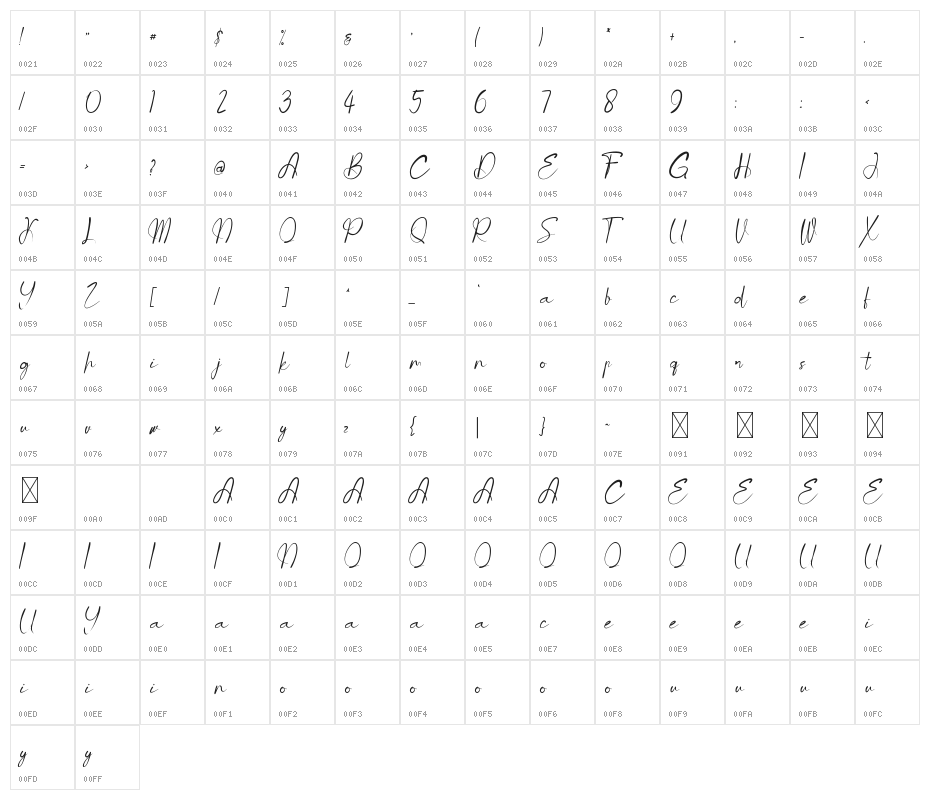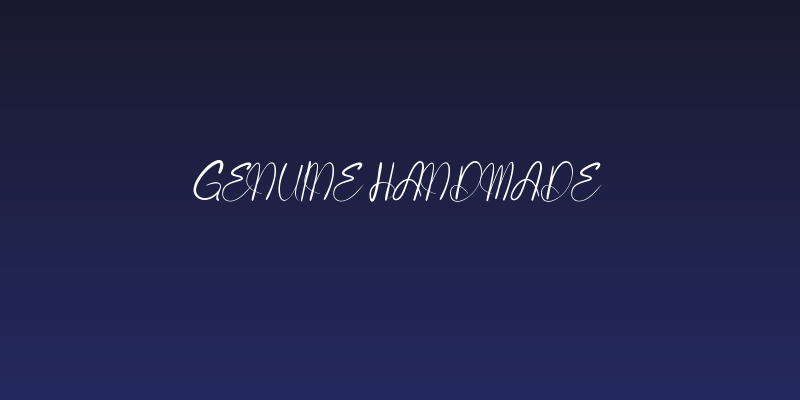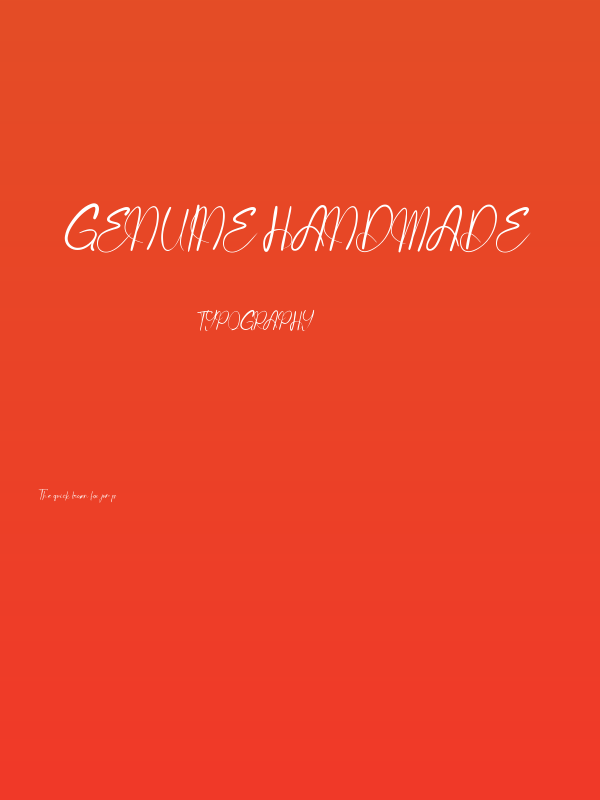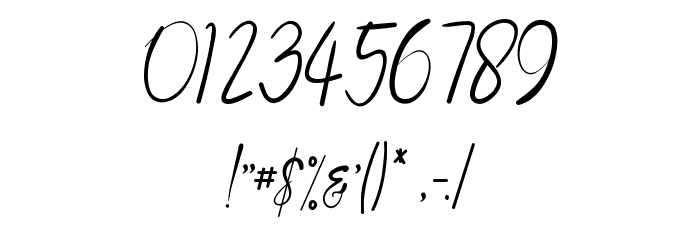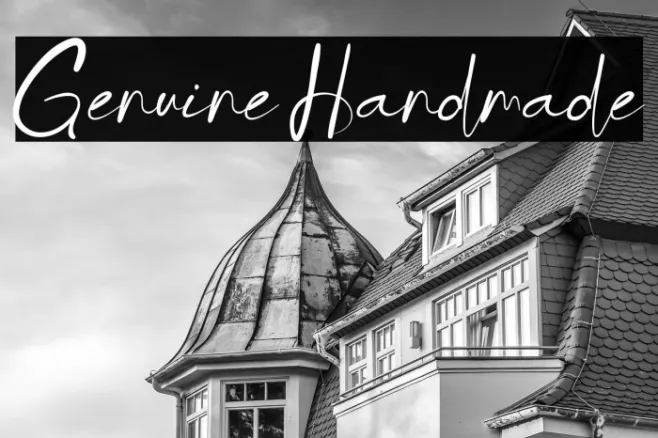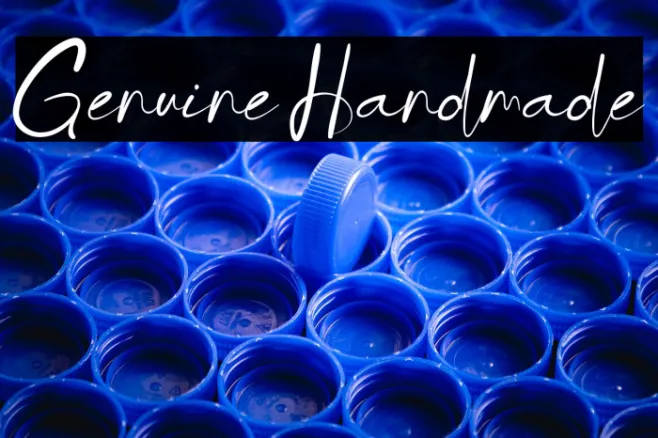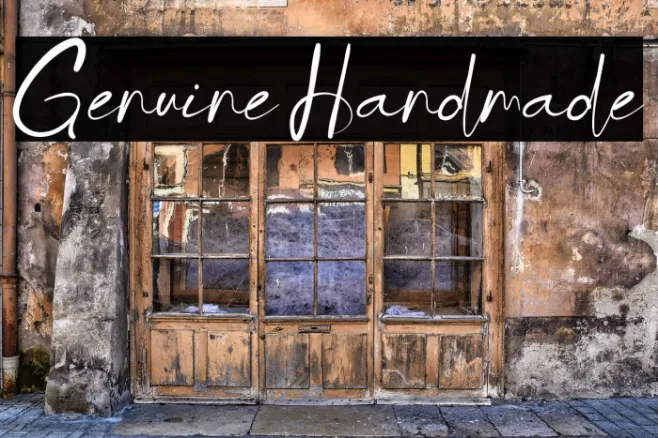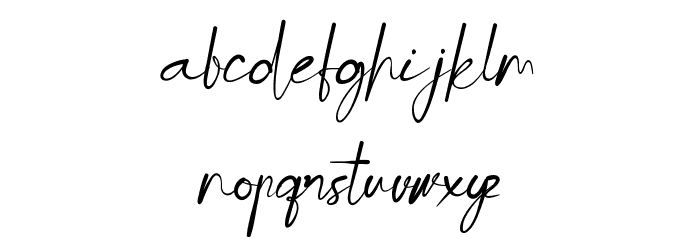
Genuine Handmade Font
Genuine Handmade Description
This font exudes a genuine, handmade feel with its flowing, cursive style. The characters are elegantly crafted with a natural, organic touch, giving the impression of being carefully penned by hand. The uppercase letters are tall and slender, with graceful loops and curves, while the lowercase letters maintain a consistent fluidity and charm. The numerals are distinct and stylish, complementing the overall aesthetic. Special characters are thoughtfully designed to match the font's artistic flair. This font is perfect for projects that require a personal, artistic touch, such as invitations, greeting cards, or branding materials.
| Proposed Projects | Ideal for invitations, greeting cards, branding, and artistic projects. |